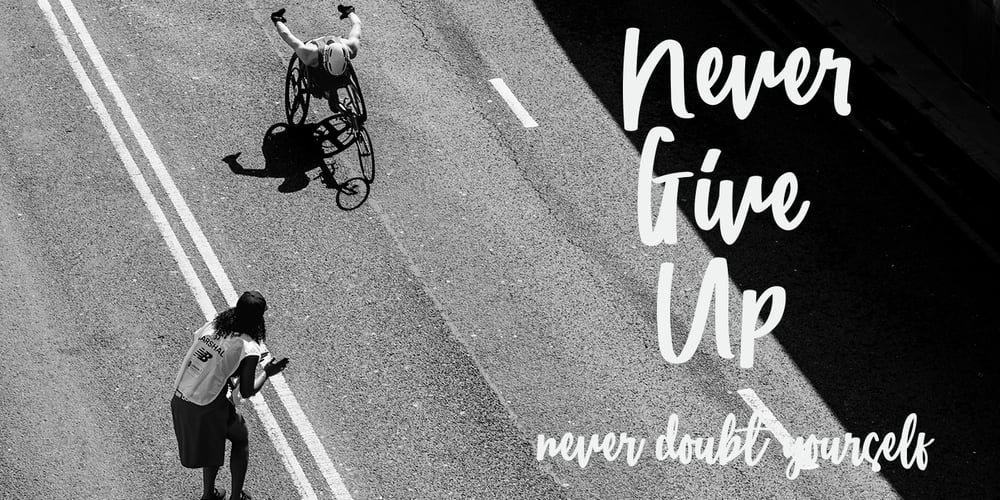
Catarina Font Family was designed by Agung Rohmat and published by alphArt. Catarina contains 1 styles and family package options. Catarina – a Handwritten Font is a handwritten script font with a simple and classy style, this font is great for your next creative projects such as watermark on photography, quotes, album cover, logo, business card, and many other design project. From business cards to photo watermarks, Catarina is here to elevate your work to the highest level. Catarina comes with uppercase letters, lowercase alternative letters, numbers, punctuation, ligature tt and multi lingual support What’s inclued : – Catarina.otf note : to use alternative end text is just block end letters and select alternative letters on glyphs option. it may be used in almost any program by using your Operating System’s utilities (CharacterMap for Windows and Font Book for Mac.), as well as Illustrator, Photoshop CC 2017 and several other applications. we hope you enjoy this font. If you have any questions please don’t hesitate to drop me a message 🙂 Thank you, Best regards alphArt